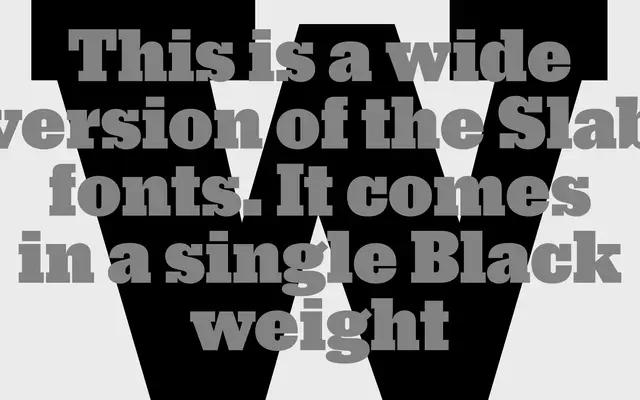
Ny. Slab Wide
A2-Type · Henrik Kubel · 2015
A wide, Black-weight slab serif cut from the Ny. family, originally commissioned for the 2015 redesign of The New York Times Magazine.
Part of the broader Ny. type system designed by Henrik Kubel, this wide slab variant draws its sharp contrast and personality from both Stephenson Blake's Mazarin metal type and the Gothic Blackletter of The New York Times Magazine logotype. Available in a single Black weight, it is built for large-scale display use where boldness and width are paramount. The name references New York, where the family debuted, and the Danish word for 'new', a nod to Kubel's origins.
A wide-cut slab serif variant within the Ny. family, drawing on the Garamond-like Mazarin metal typeface and the contrast of Gothic Blackletter, making it a distinctive display-weight slab.